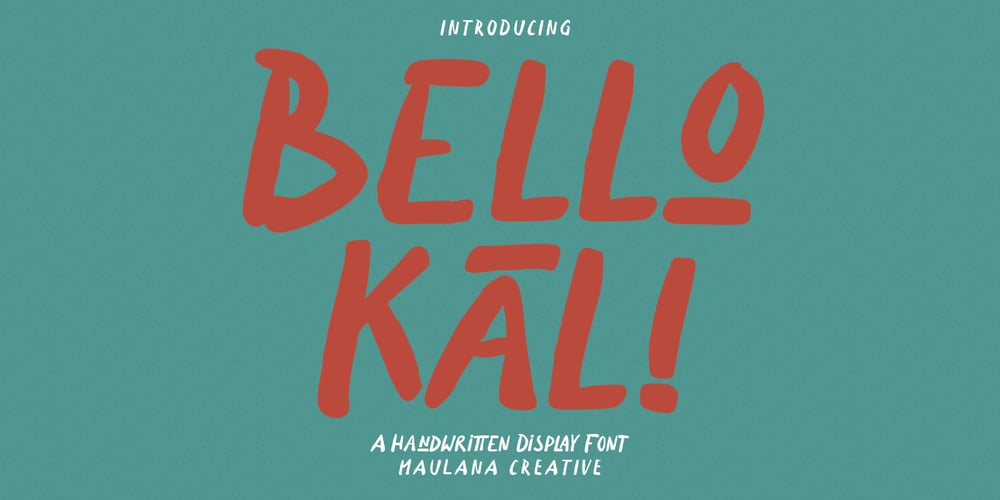
Bellokali Font Family was designed by Gilang Maulana and published by Maulana Creative. Bellokali contains 1 styles and family package options. Bellokali is a casual quirky handwritten display font. With medium scratch stroke, fun character with a bit of ligatures and alternates. To give you an extra creative work. Bellokali font support multilingual more than 100+ language. This font is good for logo design, Social media, Movie Titles, Books Titles, a short text even a long text letter and good for your secondary text font with sans or serif. Make a stunning work with Bellokali font. Cheers, Maulana Creative